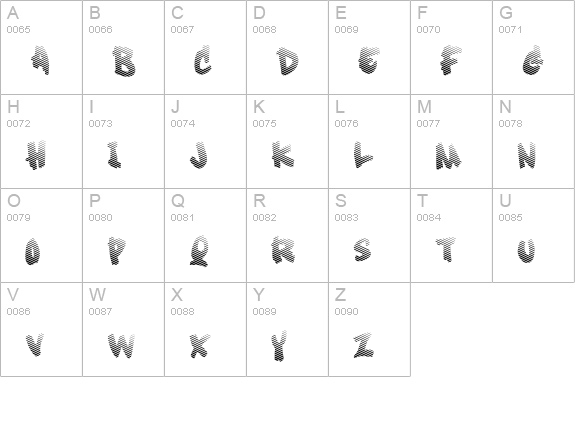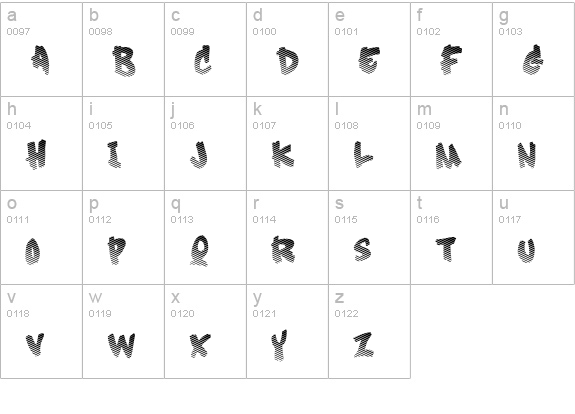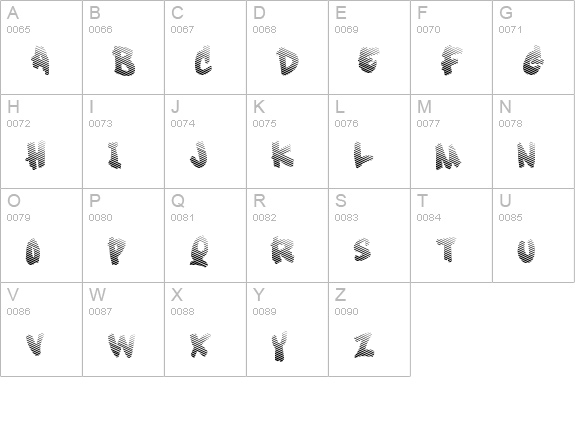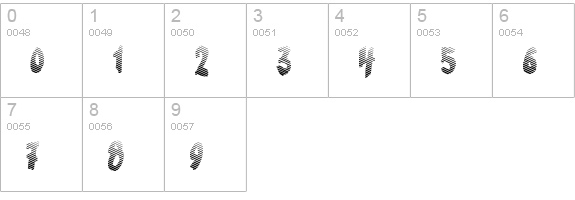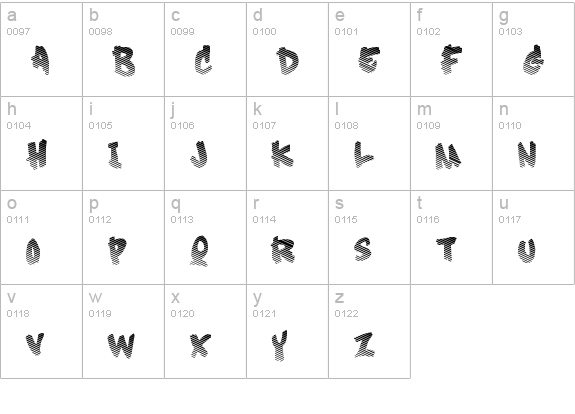
Introducing Soft Sugar [fade] font, a delightful and captivating typeface that effortlessly adds a touch of sweetness to any project. This free font boasts a unique blend of soft curves and elegant lines, creating a harmonious balance between modernity and nostalgia. Each character is meticulously crafted, with intricate detailing that brings an air of sophistication to your designs. Soft Sugar [fade] font is perfect for a wide range of creative endeavors. Whether you're designing a logo, crafting invitations, or creating eye-catching headlines, this font will surely make a lasting impression. Its gentle and graceful appearance exudes a sense of warmth and friendliness, making it ideal for projects that require a more approachable aesthetic. What makes Soft Sugar [fade] font even more remarkable is that it is freely available to download at FontsMarket.com. This means you can easily access and utilize this stunning typeface without any cost. Embrace the opportunity to add a touch of elegance and whimsy to your designs, without worrying about breaking the bank. With Soft Sugar [fade] font, you can truly let your creativity soar. Its versatility allows it to seamlessly complement a variety of design styles, from modern and minimalist to vintage and retro. The possibilities are endless, and the only limit is your imagination. Don't miss out on this incredible opportunity to enhance your projects with Soft Sugar [fade] font. Download it for free from FontsMarket.com today and experience the magic it brings to your designs.